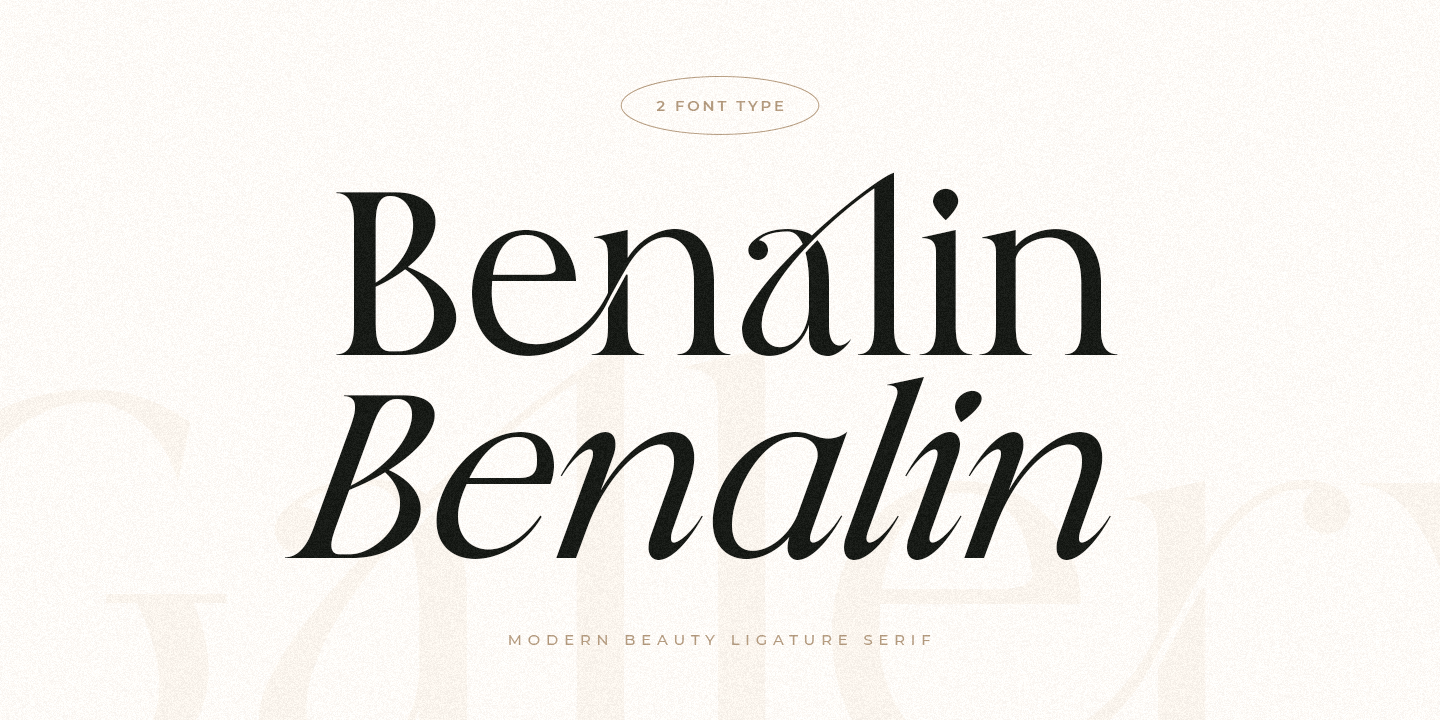
Benalin Style Font is perfect for contemporary fashion branding, stylish magazine layouts, trendy advertising campaigns, modern lifestyle materials, chic boutique signage, stylish editorial design, fashion-forward publications, and sophisticated style typography.
What makes Benalin Style Font exciting is its fashionable contemporary character that embodies style sophistication and trendy elegance through modern letterforms and fashion-forward appeal. This chic typeface features stylish construction, fashion details, and trendy personality that captures the essence of contemporary style and fashion sophistication, making it ideal for projects seeking to communicate fashion elegance, style leadership, and contemporary sophistication with authentic trendy appeal and fashion refinement.
The Benalin Style Font family includes Light, Regular, Medium, and Bold weights, each available in upright and italic variations, providing comprehensive style solutions while preserving the characteristic fashion elegance and contemporary appeal.
Benalin Style Font Free Download offers designers access to a typeface that perfectly captures the essence of contemporary fashion and style sophistication. This trendy font brings authentic fashion aesthetics to modern projects, making it essential for fashion brands, style magazines, and contemporary companies targeting audiences who appreciate fashion-forward design and style innovation. The font's stylish construction and fashion details ensure immediate recognition of elegance and trendiness while its distinctive character creates inspiring connections among individuals seeking stylish experiences and fashion sophistication. Whether designing fashion magazine materials, style brand campaigns, or contemporary lifestyle communications, this font delivers the fashion authenticity and style sophistication that fashion-conscious audiences expect. Its fashion foundation and style symbolism make it indispensable for projects celebrating contemporary fashion, style innovation, and the dynamic energy of fashion-forward design, ensuring communications resonate with audiences who value the style elegance, fashion leadership, and contemporary sophistication that define authentic fashion experiences and style excellence across diverse fashion and lifestyle applications.